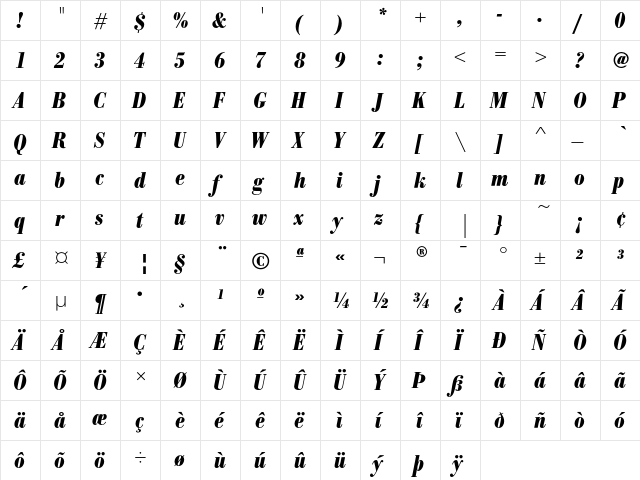
BodoniEF BoldCondIta
Design Context for BodoniEF Typeface
BodoniEF is a composed and adaptable typeface that performs quietly and consistently across a wide range of design contexts. Its bold stroke weight gives it real presence on the page. The condensed width makes it efficient for tight spaces without sacrificing legibility.